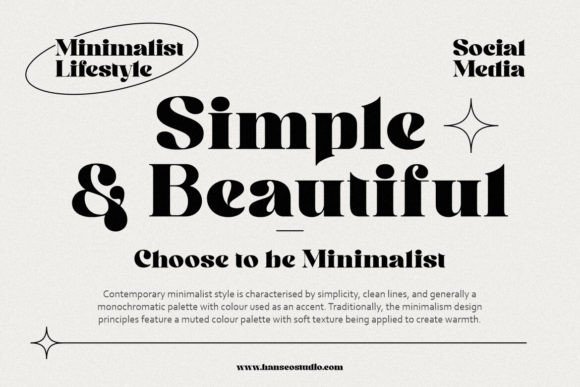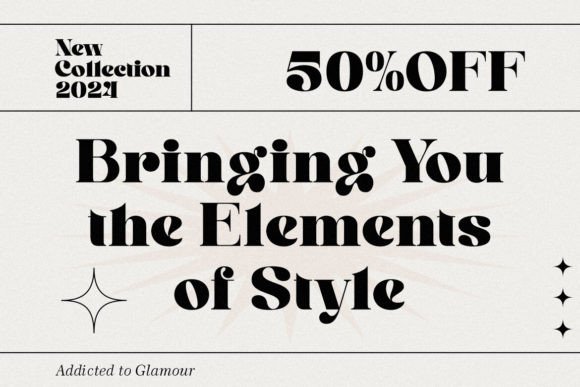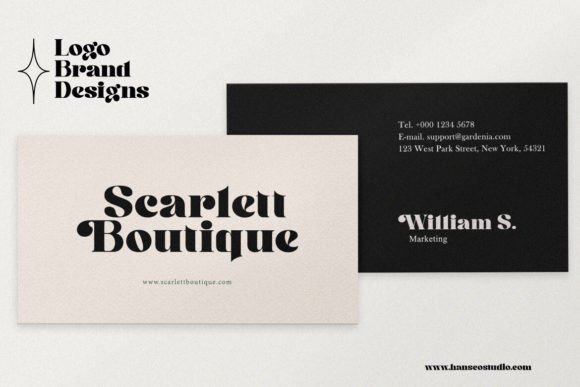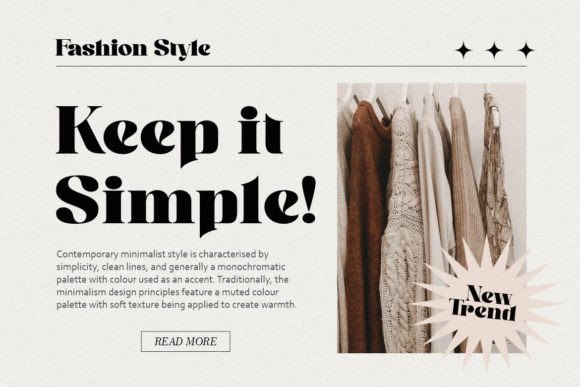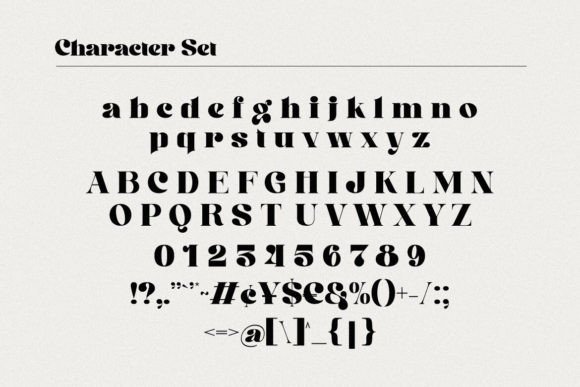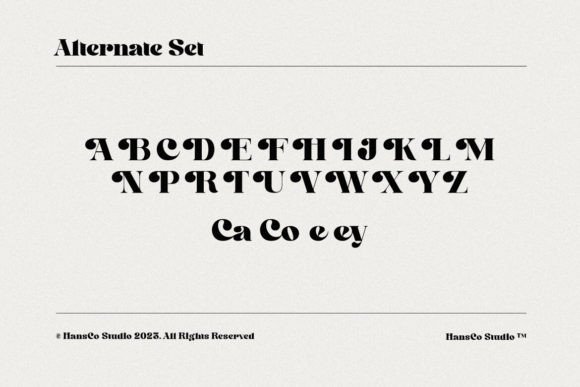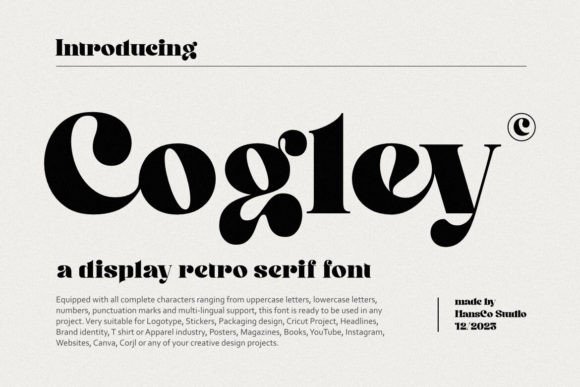
Cogley Font: Elevate Your Designs with a Vintage Retro Touch
Are you on the hunt for a font that adds a touch of vintage charm to your designs? Look no further than the Cogley Font, a stunning serif typeface that’s perfect for crafters, designers, and anyone looking to infuse their projects with a modern retro flair.
What is Cogley Font?
Cogley Font is a carefully crafted serif typeface that boasts a unique vintage and retro aesthetic. Its classic design makes it an excellent choice for a wide range of applications, from logotypes and stickers to packaging design, headlines, and brand identity. The font’s versatility and wide range of characters make it an ideal addition to any design project.
Key Features of Cogley Font
- Complete Character Set: Cogley Font comes equipped with a comprehensive set of characters, including uppercase letters, lowercase letters, numbers, punctuation marks, and multi-lingual support. This means you can use the font for projects that require a variety of languages or special characters.
- Serif Typeface: The font’s serif design adds a touch of sophistication and elegance to any project, making it perfect for designs that require a classic, timeless look.
- Vintage and Retro Look: Cogley Font’s unique design combines vintage and retro elements, creating a distinctive look that’s sure to make your designs stand out.
Use Cases for Cogley Font
Cogley Font is incredibly versatile and can be used in a wide range of design projects, including:
- Logotype: Create a lasting impression with a custom logotype that incorporates the Cogley Font.
- Stickers: Add a touch of personality to your stickers with this unique font.
- Packaging Design: Elevate your packaging design with a font that exudes vintage charm.
- Cricut Projects: Use Cogley Font in your Cricut projects to add a touch of elegance and sophistication.
- Headlines: Make your headlines stand out with a font that’s both modern and retro.
- Brand Identity: Establish a strong brand identity with a custom font that reflects your brand’s personality.
- T-Shirt or Apparel Industry: Create eye-catching apparel designs with Cogley Font.
- Posters: Create stunning posters that showcase your creativity.
- Magazines and Books: Use Cogley Font in your magazine or book designs to add a touch of sophistication.
- YouTube, Instagram, and Websites: Enhance your online presence with a font that’s both modern and retro.
- Canva and Corjl: Use Cogley Font in your Canva and Corjl designs to add a touch of elegance and sophistication.
Why Choose Cogley Font?
So, why choose Cogley Font for your design projects? Here are just a few reasons:
- Unique Design: Cogley Font boasts a unique vintage and retro design that’s sure to make your designs stand out.
- Versatility: The font’s wide range of characters and versatility make it perfect for a wide range of design projects.
- Ease of Use: Cogley Font is easy to use and can be incorporated into your designs with ease.
In conclusion, Cogley Font is an excellent choice for designers and crafters looking to add a touch of vintage charm to their designs. With its unique design, versatility, and ease of use, this font is perfect for a wide range of design projects. Whether you’re working on a logotype, stickers, packaging design, or any other project, Cogley Font is sure to elevate your designs and make them stand out.